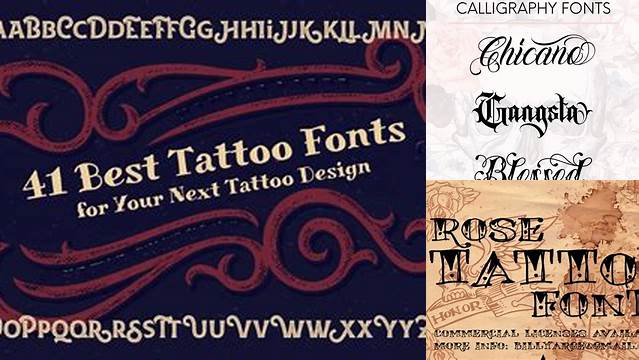
Best Tattoo Fonts: Free Download & Design Tips
Looking to get inked, guys? Finding the best tattoo fonts is a crucial step in the whole process, right up there with choosing the perfect design and the most talented artist. But where do you even begin? Fear not! This article is your ultimate guide to the world of tattoo fonts, offering free downloads, design tips, and everything in between. We'll explore a wide range of styles, from classic to modern, ensuring you find the perfect typography to bring your vision to life. Let's dive in and explore the world of awesome tattoo fonts, shall we?
H2: Exploring the Diverse World of Free Tattoo Font Styles
Hey, tattoo enthusiasts! Let's kick things off by exploring the amazing variety of tattoo font styles available. It's like a whole universe of choices out there, from the traditional to the super modern. Understanding these different styles is key to finding the perfect font that screams you and complements your tattoo design. We're talking about everything from elegant scripts to bold, edgy fonts. Each style brings its own unique vibe and can drastically change the overall feel of your tattoo. Are you leaning towards something timeless and classic, or are you more into the latest trends? Don't worry; we'll break down the most popular styles to help you make that all-important decision. Understanding the nuances of each style allows you to choose a font that not only looks great but also tells your story the way you want it told. Let's get started, shall we? We'll cover script fonts, known for their graceful, flowing lines, perfect for names, quotes, or anything that requires a touch of elegance. Then there are the classic serif fonts, which are often used for their historical charm. Think of those old-school tattoos with bold, clean lines. You've got the bold, modern fonts that are all about making a statement, and then, the handwritten fonts that have a personal, unique touch, giving your tattoo a truly individual feel. The goal here is to find the right font that speaks to your personality and makes a lasting impact.
H3: Diving into Script Tattoo Fonts: Elegance and Grace
Okay, guys, let's zoom in on script tattoo fonts. These are the ones that bring that undeniable touch of elegance and grace to any tattoo design. Think of them as the classic choice for names, quotes, and anything you want to look beautiful and flowing. The beauty of script fonts lies in their fluidity and the way they seem to dance across the skin. The curves and swirls, the delicate lines, it's all about capturing that sense of movement and artistry. If you're after a tattoo that feels both personal and timeless, a script font could be just what you're looking for. The choice of script font can really change the vibe of your tattoo. Some scripts are more formal and refined, perfect for those who want a sophisticated look, while others are more casual and free-flowing, giving off a relaxed, personal feel. Consider the overall aesthetic you're going for – are you aiming for a vintage, romantic look, or something a bit more modern and edgy? Also, keep in mind the length of your text and the size of the tattoo. Longer quotes might need a more compact script to fit nicely, while shorter names can really shine with a larger, more elaborate font. Always remember, the legibility is a key. You want your tattoo to be readable and beautiful. It’s all about finding that perfect balance between style, readability, and your personal style. The best script fonts for tattoos are those that are both visually appealing and tell your story in a captivating way.
H2: The Popularity and Aesthetics of Classic Tattoo Fonts
Alright, let's talk about some classic tattoo fonts. These are the ones that have stood the test of time and remain super popular because they just look good, no matter what. These fonts have a historical charm, a certain boldness, and a timeless appeal that keeps them in demand. Think of the traditional tattoo styles: bold lines, clean designs, and a strong sense of heritage. The use of classic fonts is a cornerstone of this look. Understanding their aesthetics and how they're used can really help you appreciate why they're still a go-to choice for so many people. These fonts often have strong serifs and clean lines, which is ideal for ensuring your tattoo looks crisp and legible, even as the years go by. They're perfect if you're after a design that's both visually striking and carries a sense of legacy. You'll find these fonts in various styles, ranging from the simple and straightforward to more ornate designs. They are the perfect foundation for all sorts of designs, from anchors to roses and everything in between. The beauty of classic fonts is their versatility. They work well with a variety of tattoo styles, from traditional to neo-traditional, and they can also be paired with other fonts to create a unique and personalized design. The key is to choose a font that resonates with your personal style and complements the overall design of your tattoo. Classic fonts are more than just letters; they are a connection to the history and culture of tattooing.
H3: Serif vs. Sans-Serif: Decoding the Differences in Tattoo Fonts
Okay, let's get into the nitty-gritty of serif vs. sans-serif fonts. It's a crucial distinction to understand when choosing a tattoo font. This is how you can really tailor the font to the look you're aiming for, and we will help break it down! Serif fonts are characterized by the small decorative strokes or